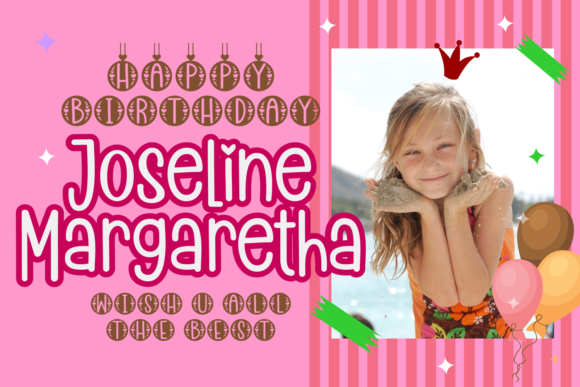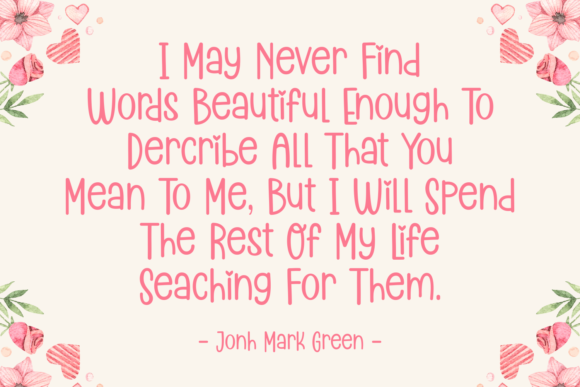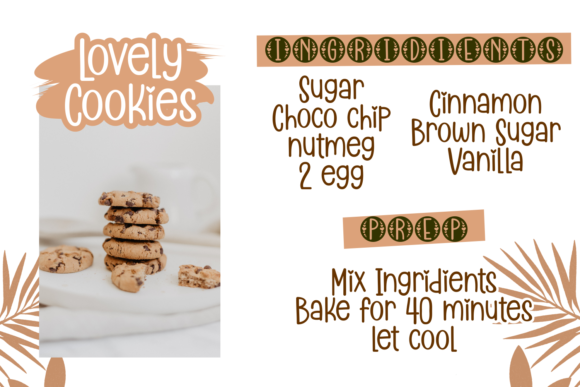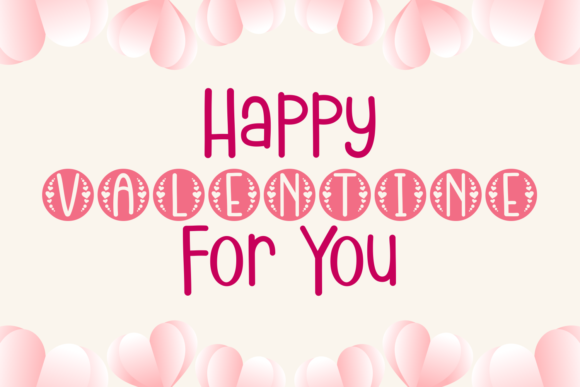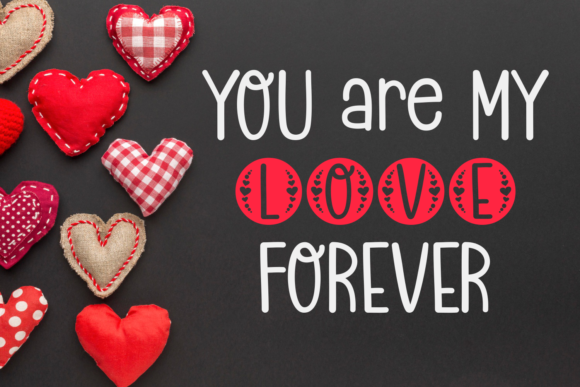
Beloved Diary Font
About Beloved Diary Font
Beloved Diary is a cute and whimsical handwritten font. Dainty and joyful, this font will be ideal for writing wedding invitations, cards or any other design that may need a romantic, personalized touch!